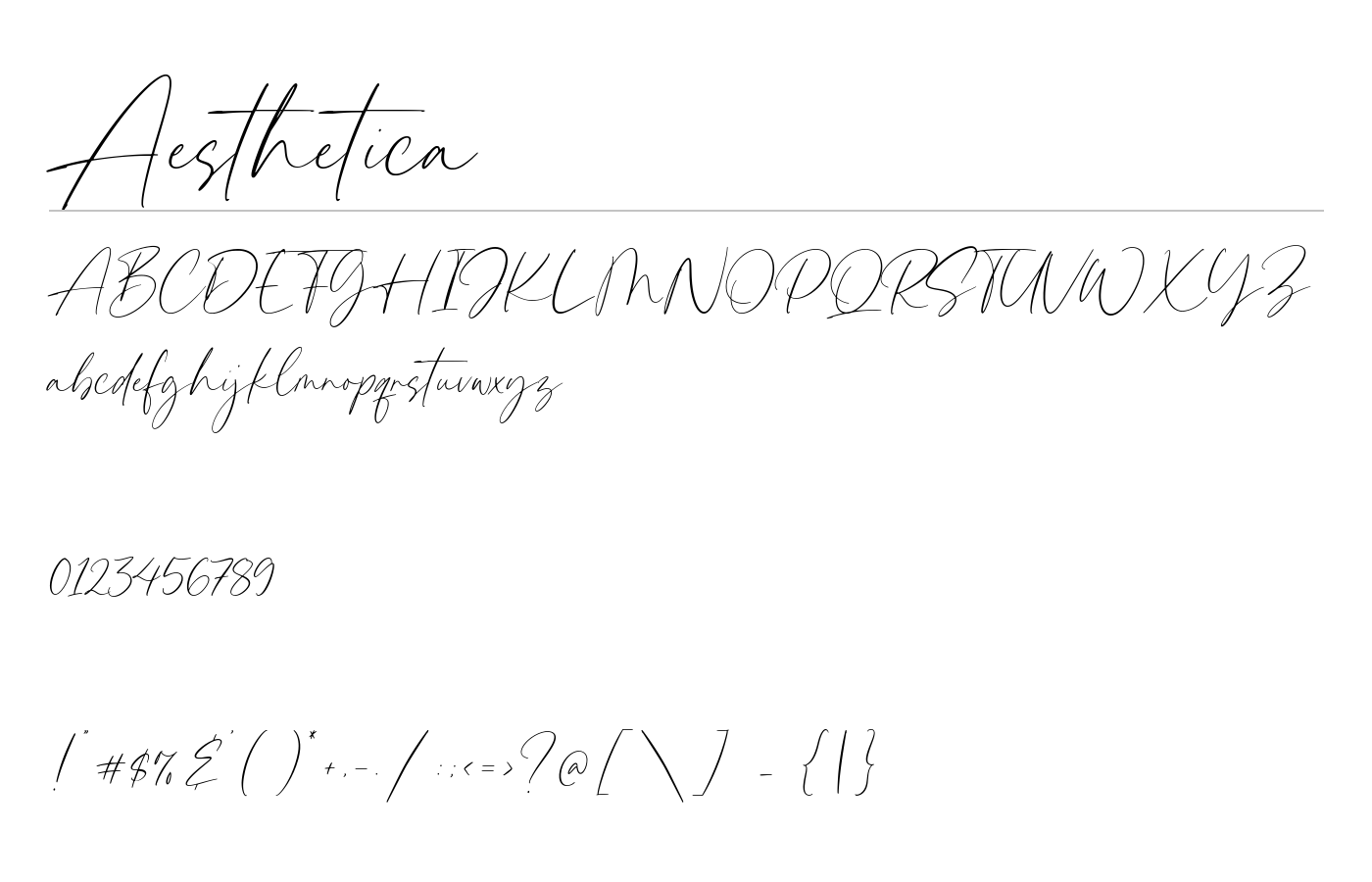
Aesthetica is a delicate and elegant script font characterized by its thin, flowing strokes and refined handwritten style. It conveys a sophisticated and graceful personality, making it ideal for luxury branding, wedding invitations, and high-end fashion projects where a touch of personal elegance is desired. Its airy and stylish letterforms work best in headlines or decorative text rather than body copy, ensuring a chic and modern aesthetic.
Aesthetica Font
About Aesthetica Font